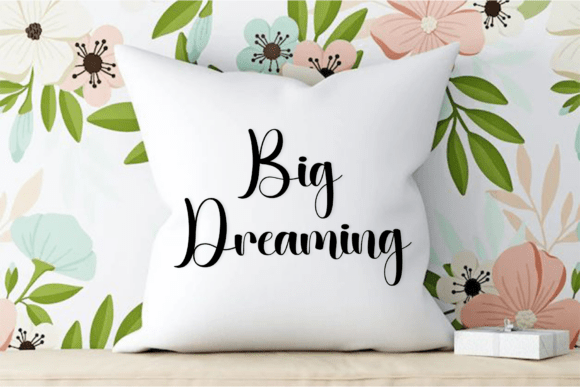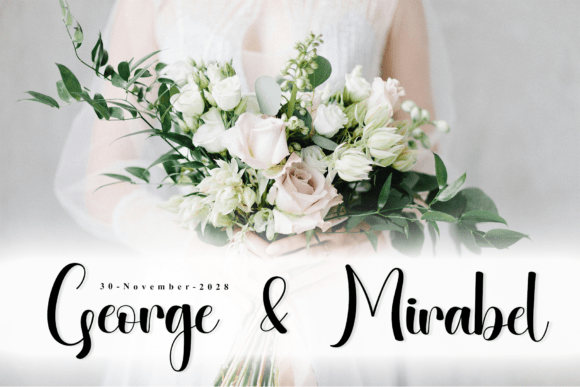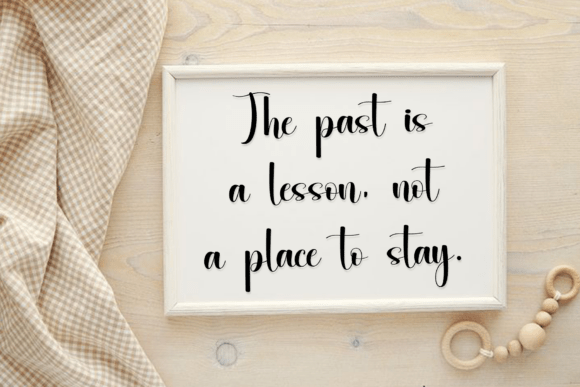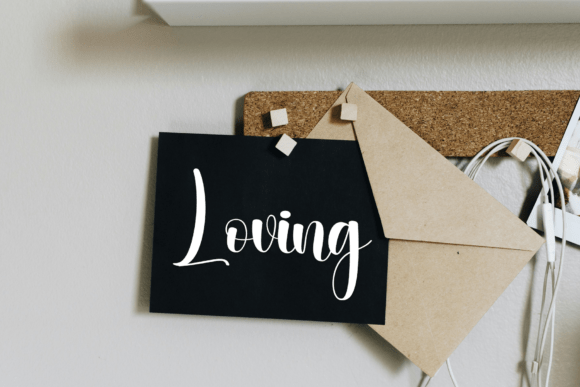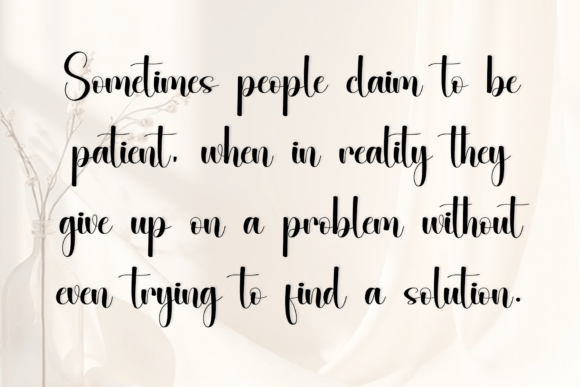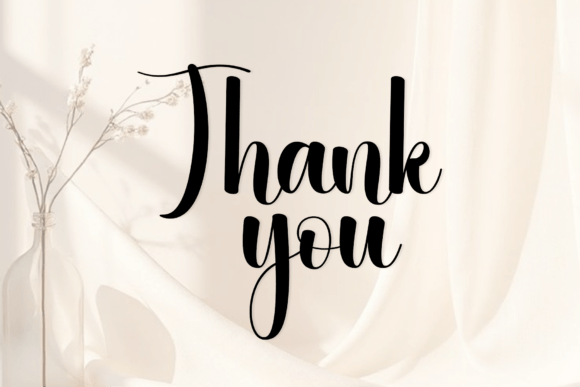
Introducing Anthony Font: The Epitome of Elegance in Modern Handwritten Script
In the realm of typography, few fonts manage to convey the essence of luxury and professionalism as effectively as Anthony Font. This stunningly elegant and highly refined modern handwritten script font is the embodiment of artistry, designed to deliver a sophisticated and personalized touch that is ideal for high-end branding. Whether you’re a designer looking to elevate your client’s brand or a crafter seeking to add a touch of elegance to your projects, Anthony Font is an exceptional choice.
Characteristics of Anthony Font
Anthony Font is characterized by its dramatic contrast between thick downstrokes and delicate hairlines, a feature that sets it apart from more mundane typefaces. This contrast not only adds to its visual appeal but also brings a sense of dynamism and fluidity to the text, making it more engaging and captivating to read. Additionally, the font boasts beautifully integrated ligatures and swashes, which further enhance its sophistication and elegance.
The inclusion of ligatures and swashes in Anthony Font is not merely decorative; it serves to create a more natural and fluid writing experience. These elements allow the letters to connect and flow into one another seamlessly, mimicking the organic nature of handwriting. This results in a text that feels highly personalized and unique, as if it were penned by a skilled calligrapher.
The Artistry of Anthony Font
Anthony Font is more than just a typeface; it is a work of art that conveys the unique and professional quality of a skilled calligrapher. Its design reflects a deep understanding of typography and a keen eye for detail, making it an excellent tool for designers and crafters who aim to create high-end branding materials. The font’s luxurious feel and sophisticated aesthetic make it particularly well-suited for projects that demand a high level of elegance and refinement.
From luxury brand logos and high-end product packaging to elegant wedding invitations and sophisticated advertising campaigns, Anthony Font can elevate any project with its refined presence. Its versatility and wide range of applications make it an invaluable asset for any designer or crafter looking to add a touch of luxury to their work.
Why Choose Anthony Font?
There are several reasons why Anthony Font stands out as a premier choice for designers and crafters:
- Elegance and Sophistication: Anthony Font embodies the essence of luxury and sophistication, making it ideal for high-end branding projects.
- Versatility: Its refined and elegant design makes it suitable for a wide range of applications, from logos and packaging to invitations and advertising.
- Professionalism: The font’s high level of craftsmanship and attention to detail convey a sense of professionalism and expertise.
- Personal Touch: The beautifully integrated ligatures and swashes give the text a personalized and unique feel.
Anthony Font is a truly exceptional typeface that offers a unique blend of elegance, sophistication, and professionalism. Its stunningly elegant design, characterized by dramatic contrasts and beautifully integrated ligatures and swashes, makes it an ideal choice for designers and crafters looking to create high-end branding materials. With Anthony Font, you can add a touch of luxury and refinement to your projects, elevating them to new heights of artistry and appeal.
Whether you’re working on a luxury brand campaign, designing elegant wedding invitations, or crafting sophisticated advertising materials, Anthony Font is sure to meet your needs and exceed your expectations. Its versatility, combined with its luxurious feel and sophisticated aesthetic, make it an invaluable asset for anyone looking to create visually stunning and highly effective designs.